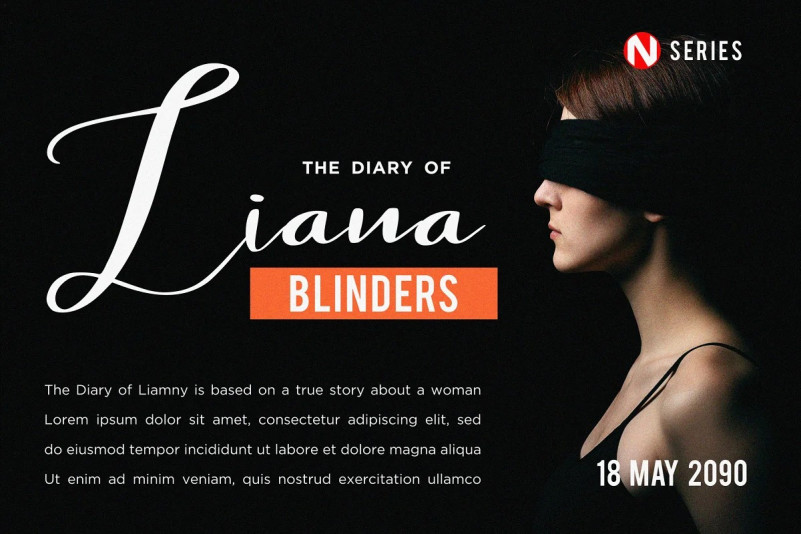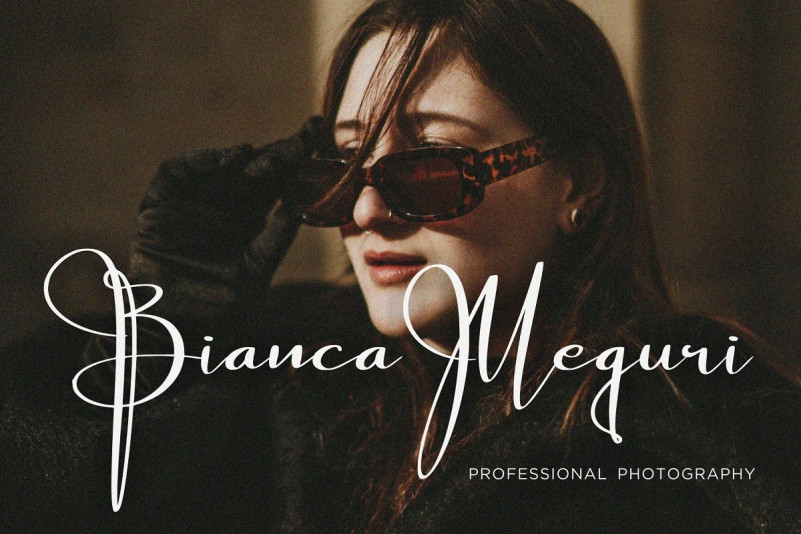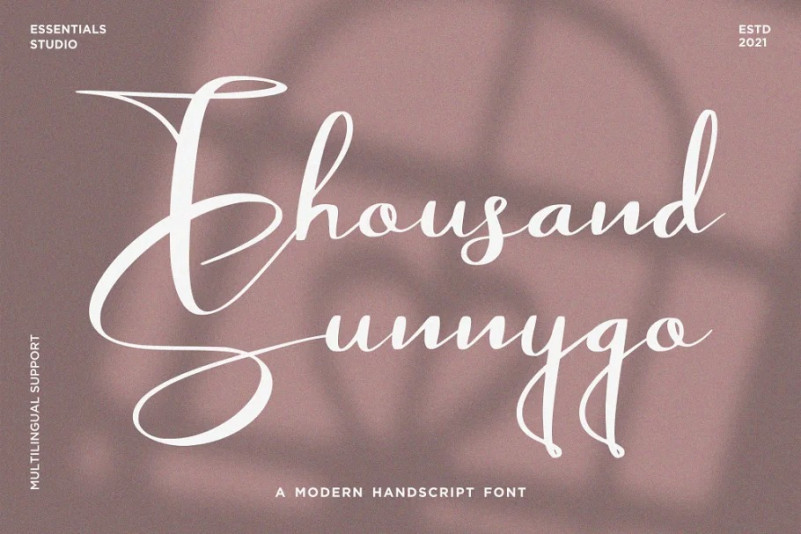
Scientesia Handwritten Font
Scientesia Script Font is hand brushed typeface. Very cool for name tag, handwritten quotes, product packaging, merchandise, social media & greeting cards. And very easy to make design magazine headline and other products. Very save time in making the design of a product. It contains a full set of lower & uppercase letters, a large range of punctuation, numerals, and multilingual support.